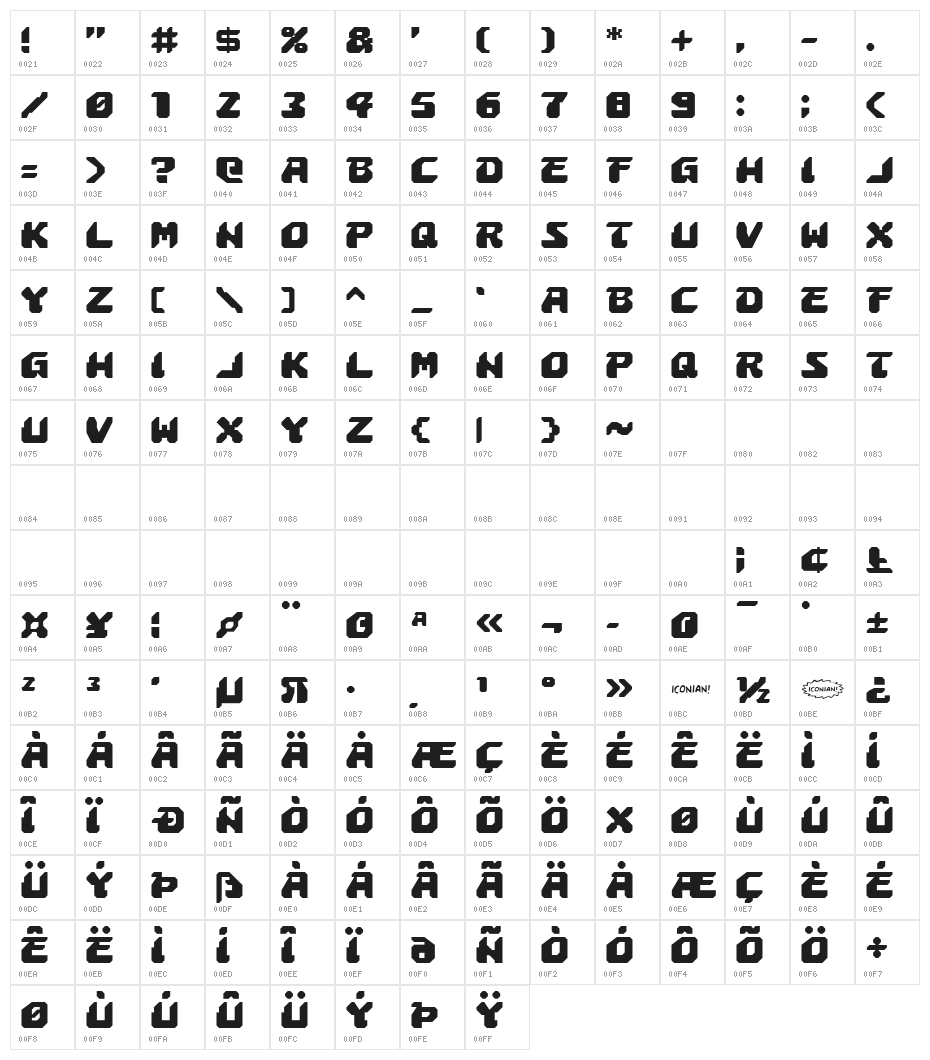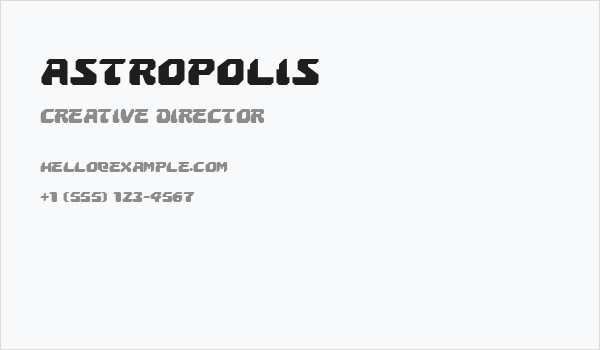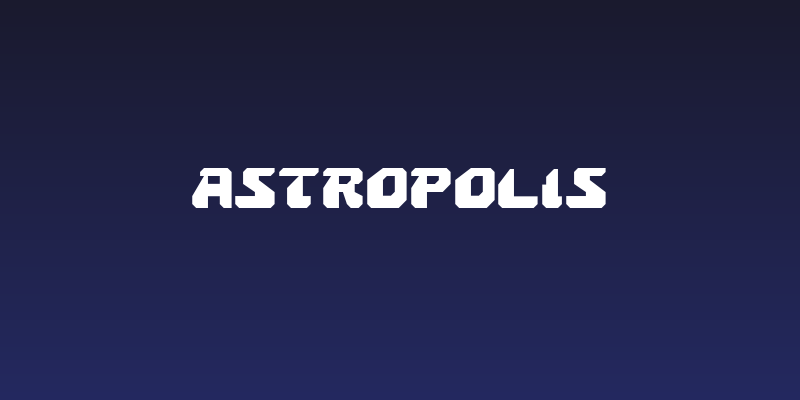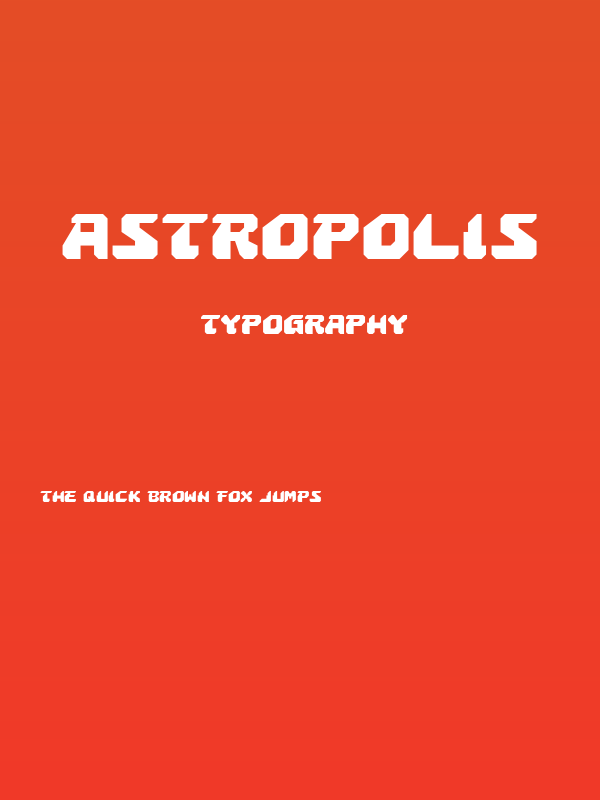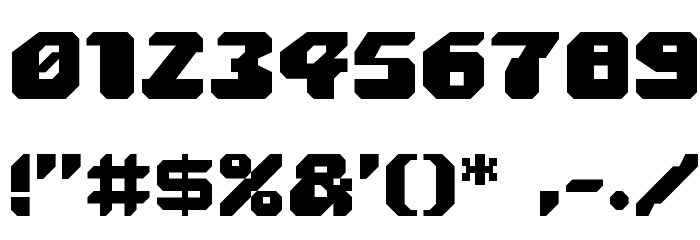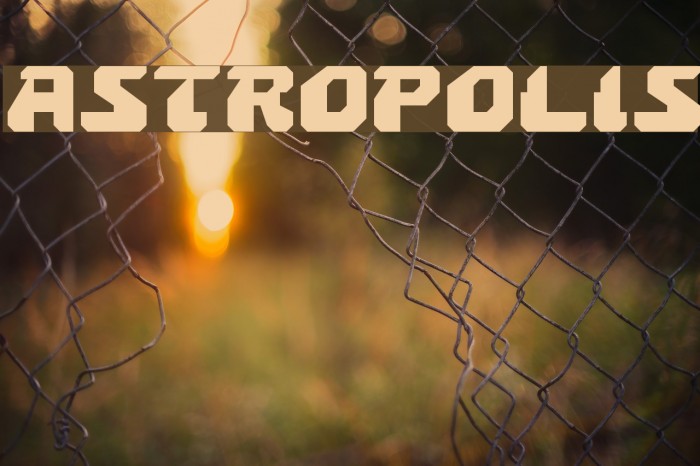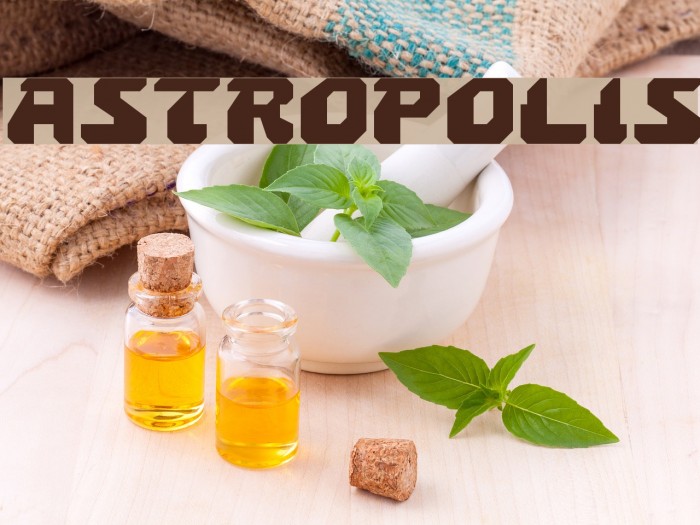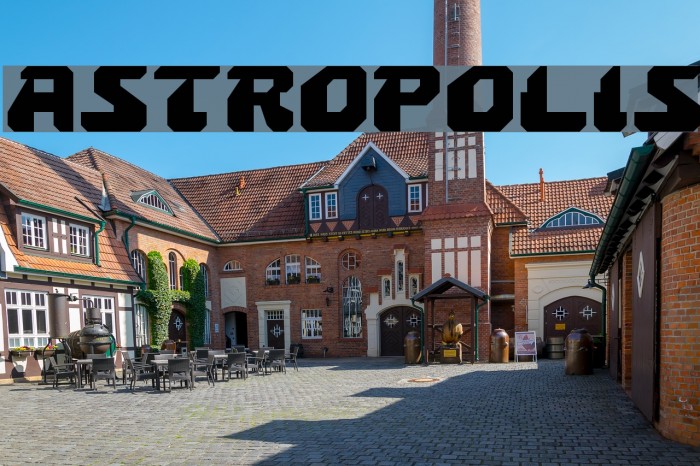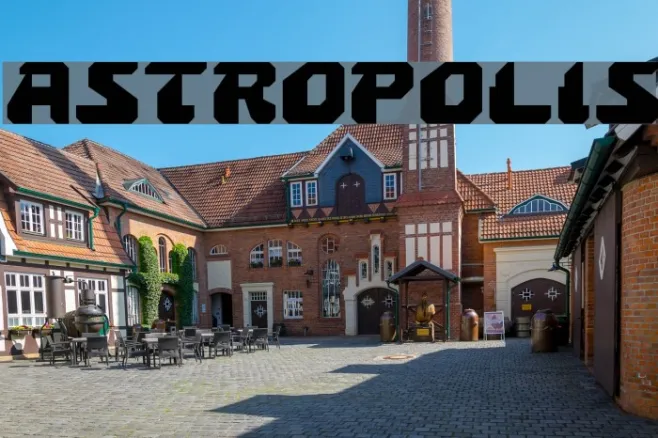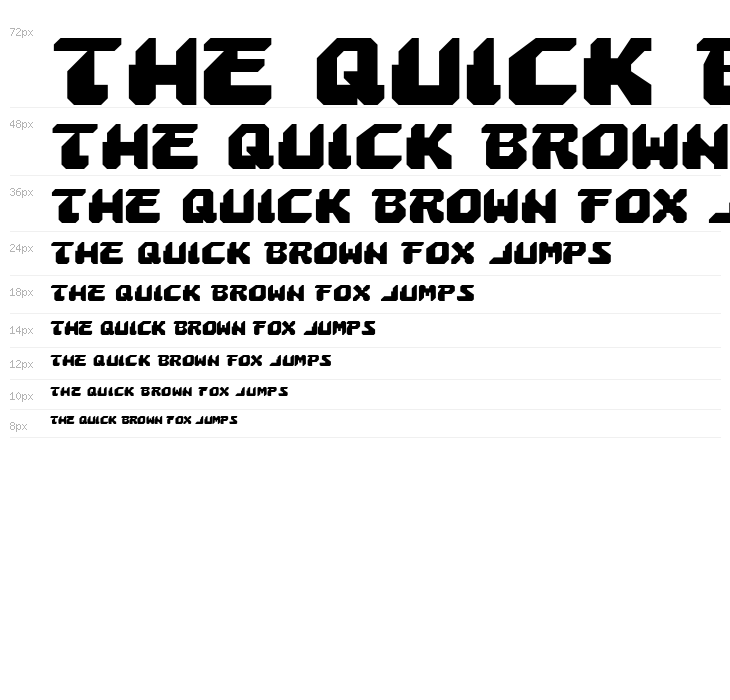
Astropolis Font
Astropolis Description
This font features a bold, geometric design with sharp angles and a futuristic aesthetic. The characters are blocky and robust, giving a strong presence that commands attention. The uppercase and lowercase letters share a consistent style, with the lowercase slightly smaller but maintaining the same boldness. The numbers and special characters follow the same design principles, ensuring uniformity across all glyphs. The font's unique style makes it ideal for projects that require a modern and edgy look, such as technology-related branding or sci-fi themed designs.
| Overall Style | Futuristic, Modern |
| Proposed Projects | Ideal for technology branding, sci-fi themes, video game titles, and modern posters. |